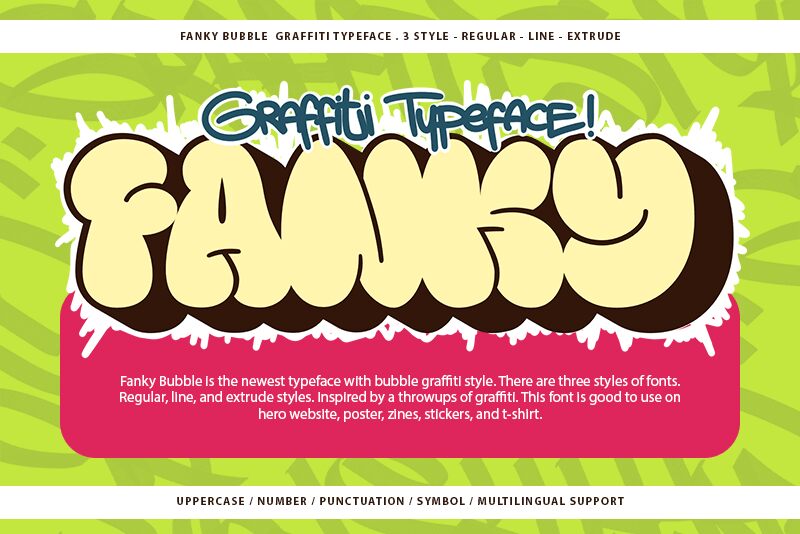
Fanky Bubble Graffiti Extrude
Fanky Bubble Graffiti Extrude font, from the Fanky Bubble Graffiti family by Fitrah Type, captures the vibrant essence of urban artistry. This bold graffiti style brings a playful yet impactful energy, characterized by its rounded shapes and exaggerated dimensions that evoke a sense of movement and fun. Each letter resembles a burst of creativity, inviting attention with its dynamic flair.
Visually striking and brimming with personality, this font stands out in various design contexts—from eye-catching posters to lively branding materials. Its expressive form is ideal for projects aimed at engaging youthful audiences or conveying an energetic brand identity. Overall, Fanky Bubble Graffiti Extrude seamlessly blends artistic charm with practical applicability, making it a fantastic choice for those seeking to make a bold statement.